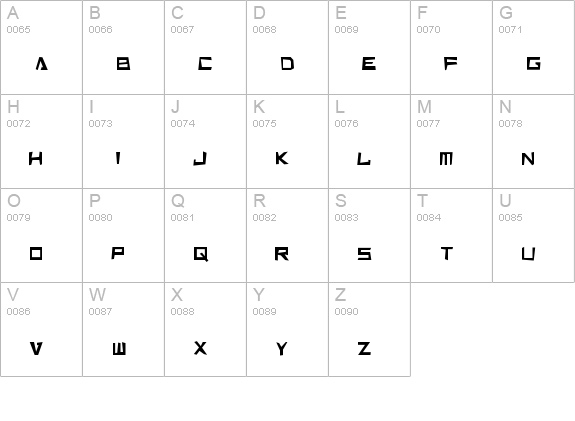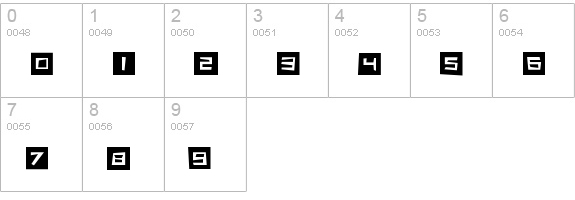
Cut It Out Font Details
Cut It Out is a free for personal use font in the Fancy > Decorative category, designed by Darrell Flood. It has been downloaded 50 times and is available for Windows, Mac and Linux.
Cut It Out font is a fun and playful typeface that adds a unique touch to any design. With its bold and cut-out style, this font is perfect for projects that need a modern and eye-catching look. The sharp edges and geometric shapes give Cut It Out font a contemporary feel, making it ideal for posters, flyers, and social media graphics.